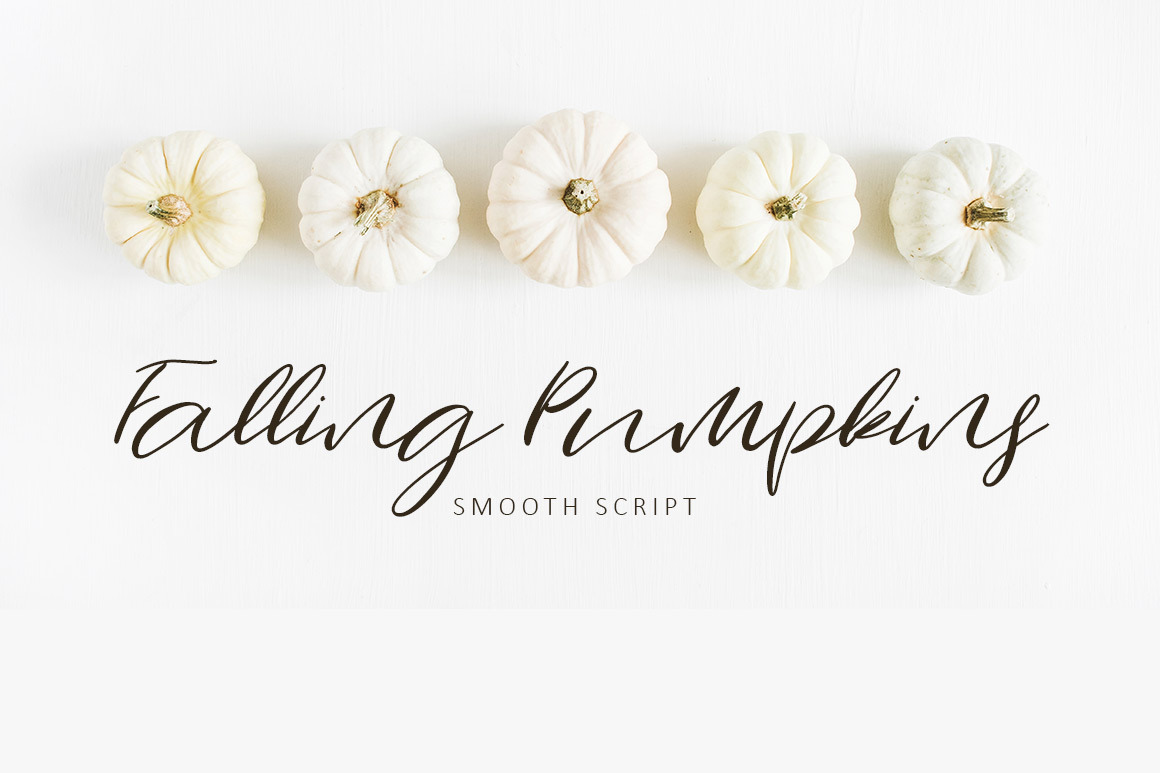
Falling Pumpkins Script Font
Introducing Falling Pumpkins
This is a beautiful hand written script font, perfect for wedding stationery, invitations, quotes, etc.
Falling Pumpkins supports international characters.